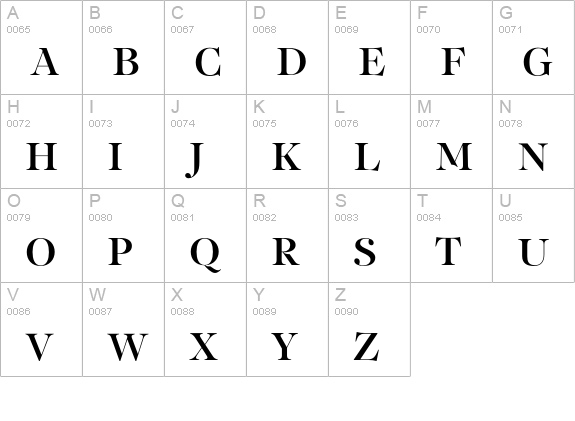
PFRegalDisplayPro-Medium Font Details
PFRegalDisplayPro-Medium is a balanced, medium-weight variant in the PFRegalDisplayPro typeface family \xE2\x80\x94 well suited to sub-headlines, navigation, and balanced editorial work.
PFRegalDisplayPro-Medium is a stunning and versatile font that strikes the perfect balance between elegance and readability. With its bold yet sophisticated design, this typeface is ideal for a wide range of design projects, from branding and advertising to editorial and packaging. The medium weight of the font adds a touch of modernity while still retaining a classic appeal. Whether you're looking to make a statement or create a refined look, PFRegalDisplayPro-Medium is sure to impress. The best part? You can freely download PFRegalDisplayPro-Medium at FontsMarket.com. This means you can access this premium font without any cost, making it a valuable addition to your font library. Don't miss out on the opportunity to elevate your designs with the timeless beauty of PFRegalDisplayPro-Medium.